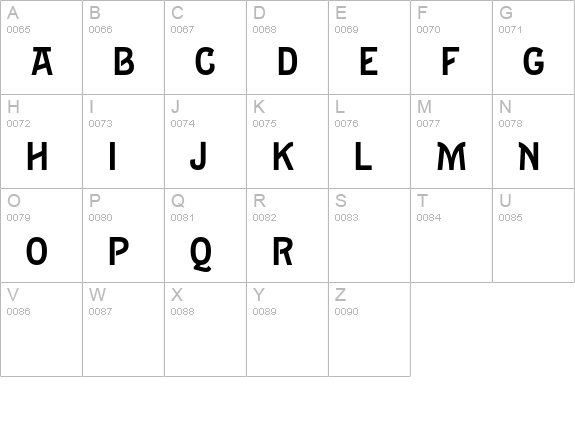
Epitaph-Regular Font Details
Epitaph-Regular is the standard, neutral variant in the Epitaph typeface family \xE2\x80\x94 well suited to general body text, paragraphs, and standard typographic work.
Epitaph-Regular font is a versatile and elegant typeface that exudes a classic and timeless appeal. With its clean lines and balanced proportions, this font is perfect for a wide range of design projects, from invitations to branding to editorial layouts. The graceful serifs and subtle curves of Epitaph-Regular add a touch of sophistication to any text, making it a popular choice among designers looking for a refined and polished look. What makes Epitaph-Regular even more appealing is that it is completely free to download at FontsMarket.com. This means that you can enhance your projects with this beautiful font without any cost, making it a valuable addition to your font collection. Whether you are working on a personal project or a professional design, Epitaph-Regular offers a perfect blend of style and versatility, making it a must-have font for any designer. Download it today and elevate your designs with the timeless charm of Epitaph-Regular.